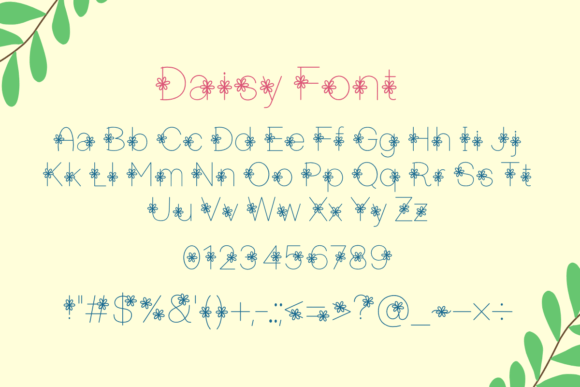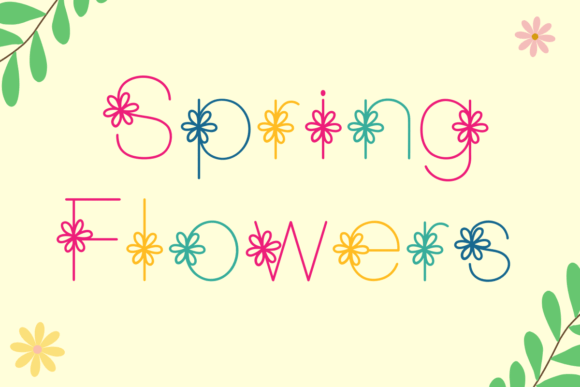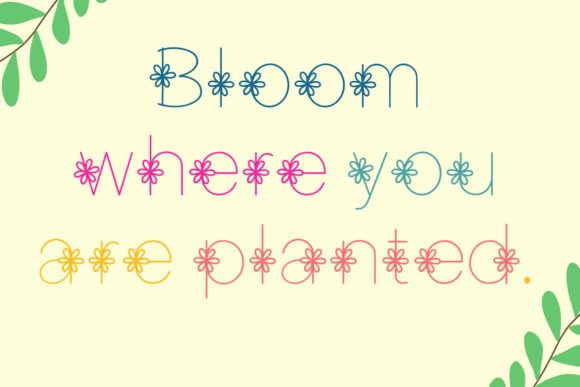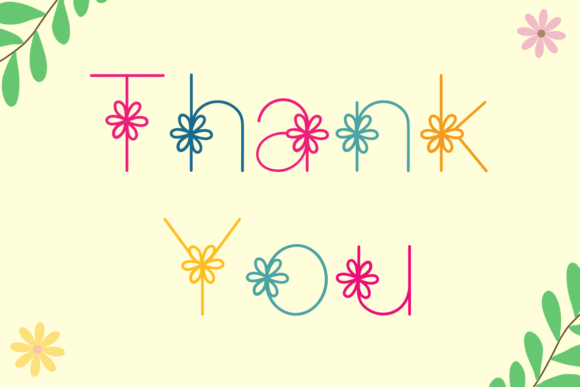
The Sweet Charm of Daisy Font: A Designer’s Delight
I still remember the time I was working on a whimsical children’s game project, and I was on a mission to find the perfect font to bring the characters to life. The project required a font that was not only adorable but also versatile enough to be used across various design elements, from headings to body text. After hours of scouring through font libraries, I stumbled upon the delightful Daisy Font. It was love at first sight! ✨
Whether you’re a designer, crafter, or creative hobbyist, if you’re looking for a font that can add a lovely touch to your projects, you’re in the right place. In this article, we’ll dive into the world of Daisy Font, exploring its features, uses, and some practical tips on how to make the most of this beautiful decorative font.
An Honest Review of Daisy Font
What I Love About Daisy Font
- ✨ Adorable and charming design that’s perfect for projects that require a touch of whimsy
- ✅ Highly versatile and can be used for a wide range of projects, from children’s games to spring crafts
- 🎨 Beautifully designed glyphs and OpenType features that add an extra layer of creativity to your designs
- 👍 Easy to read and works well for both headings and body text
While Daisy Font is an amazing choice for many projects, there are a few things to keep in mind: 🤔
- ⚠️ It may not be the best choice for very formal or professional projects, as it’s a decorative font that leans towards the playful side
- ⚠️ Some of the glyphs and special characters may not work well in all software or platforms, so it’s essential to test the font before committing to a project
The Story Behind Daisy Font
Daisy Font was designed with the intention of creating a font that was both beautiful and playful. The designer wanted to create a font that would be perfect for projects that require a touch of whimsy and charm. Inspired by the beauty of flowers and the simplicity of children’s drawings, Daisy Font was born. 🌼
Q: What is Daisy Font?
A: Daisy Font is a decorative font that’s perfect for projects that require a touch of whimsy and charm.